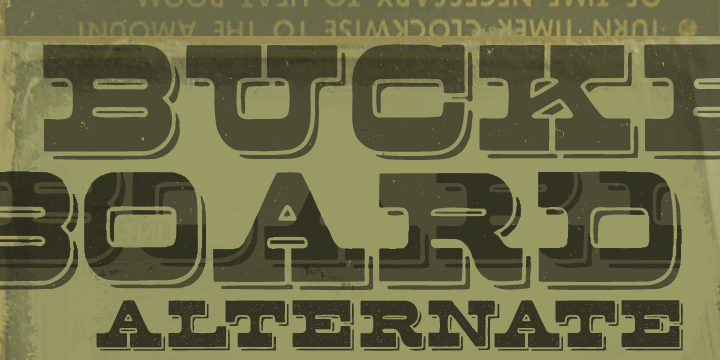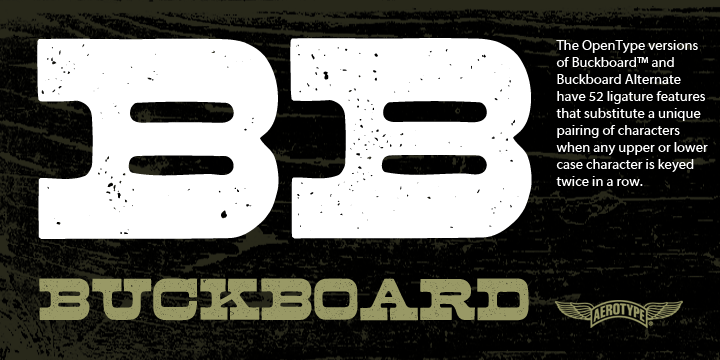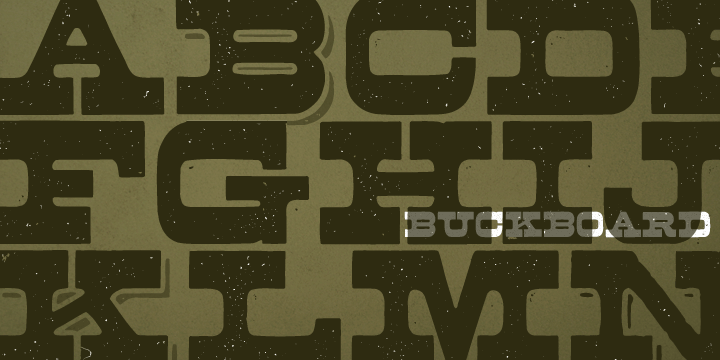
Buckboard Pro is a grunge and western font family. This typeface has two styles and was published by Aerotype .
Nothing says Wild West like a good ole authentic woodtype font with its original patina. The OpenType versions of Buckboard and Buckboard Alternate have 52 ligature features that automatically substitute a unique pair of distressed characters when any upper or lower case letter is keyed twice in a row, as well as features for Old Style Numerals and Small Caps. Both fonts also support Eastern European Latin and Baltic languages.